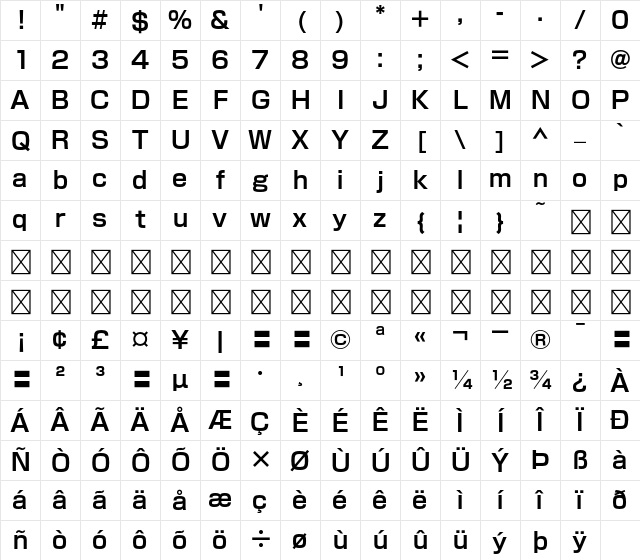
A-OTF HaseToppo Std DB
Style: DB
Designer: Shinsaku Hasegawa
Complete A-OTF HaseToppo Std DB glyph index. Displaying only characters natively supported by A-OTF HaseToppo Std DB font.
Design Context for A-OTF HaseToppo Std
A-OTF HaseToppo Std is a composed and adaptable typeface that performs quietly and consistently across a wide range of design contexts.